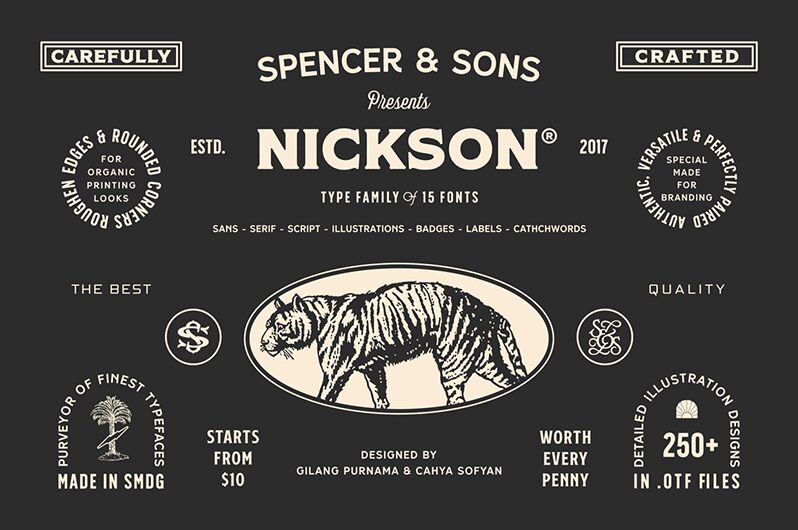
Nickson Font Family includes 15 fonts that have different styles from each other but at the same time perfectly paired when used together. Nickson offers seven display fonts, one script font, 250+ illustrations (using new techniques so you will not lose every detail), badges, labels, and catchwords. Nickson Font Family Collection was designed carefully to create elegant typographic works. It would be a perfect choice to design posters, affiches, logos, t-shirt and magazine prints, eye-pleasing typographic designs and more.
*all the designs contained in the poster using nickson font family
Suggestion : This font is a terrific toolbox for display purposes